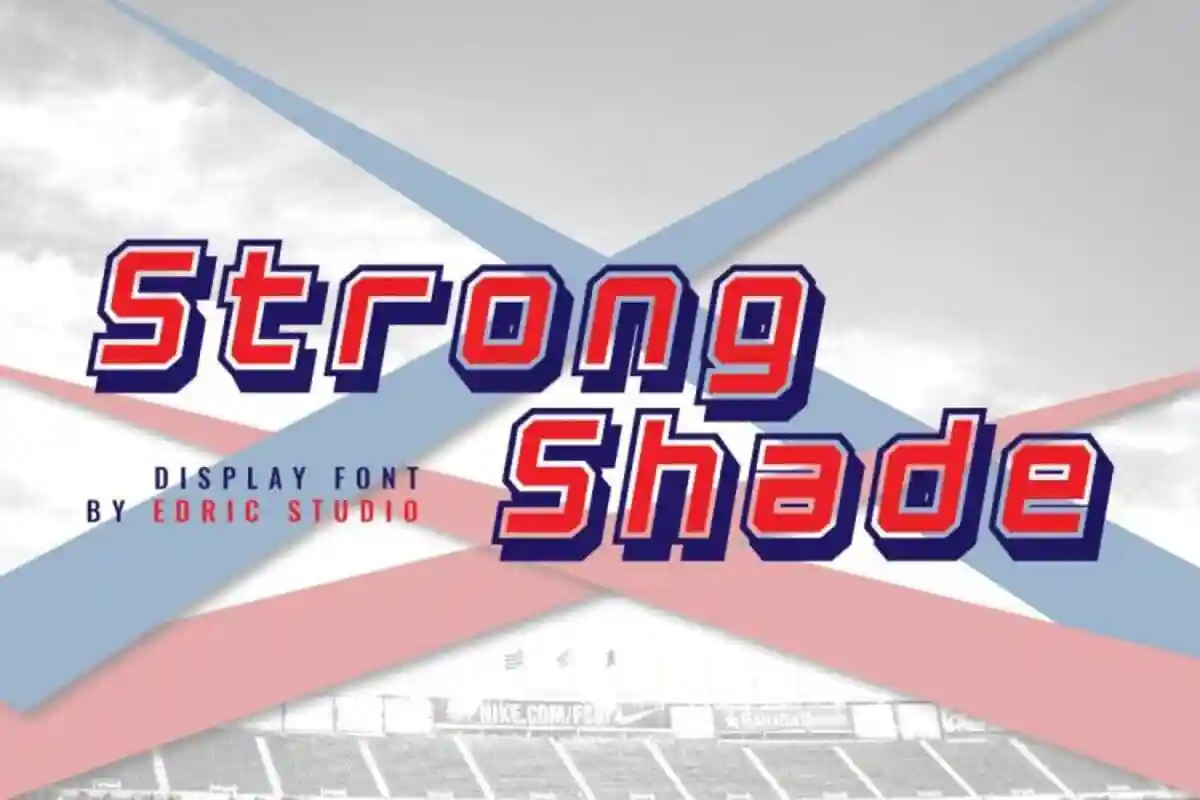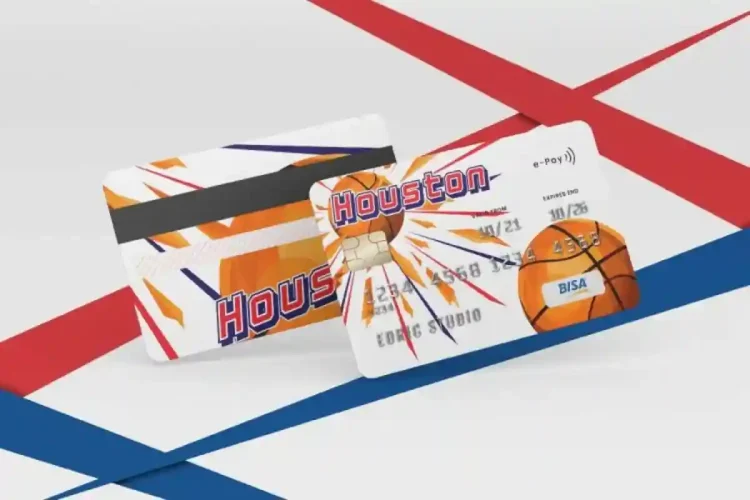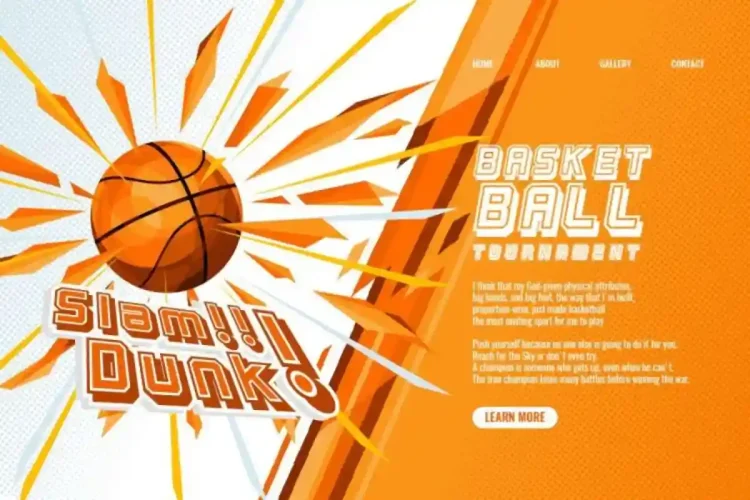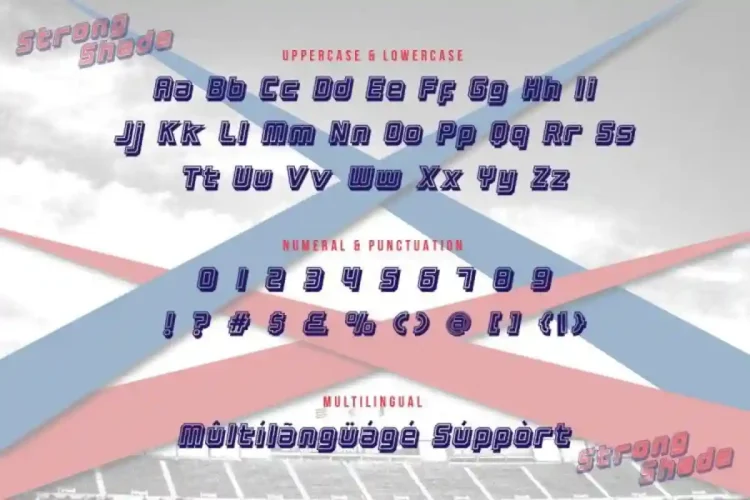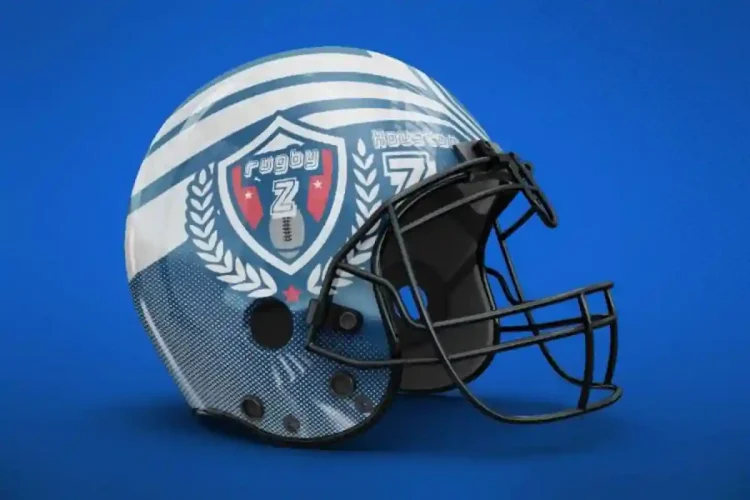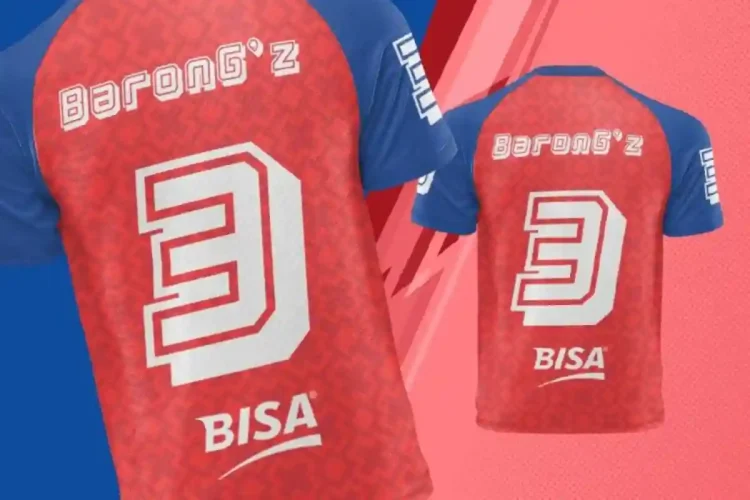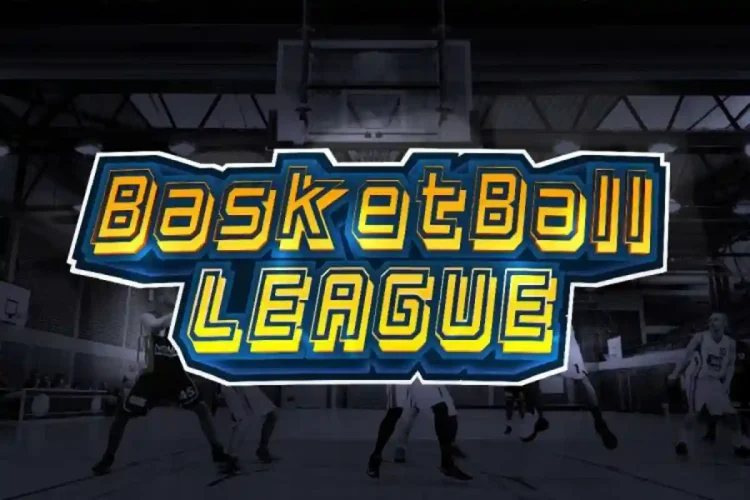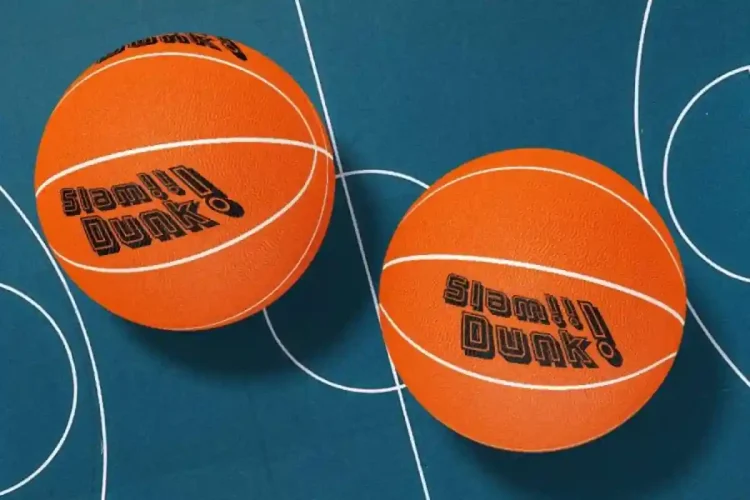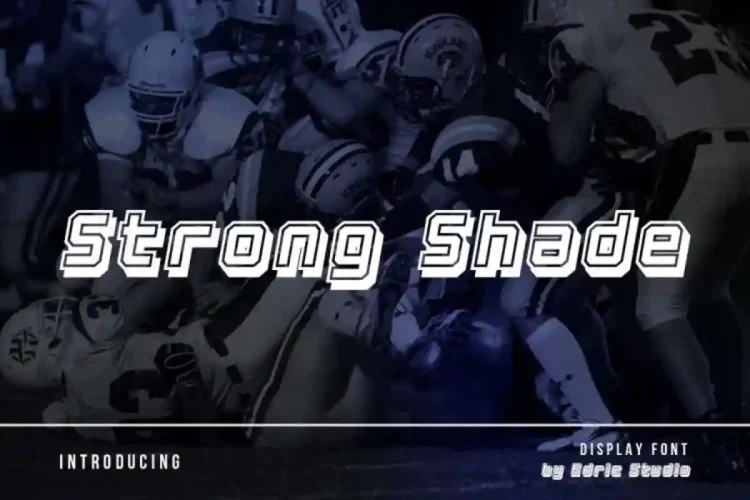
Strong Shade Display Font
Strong Shade Font is a sporty display font with special shadow on it, inspired by many baseball posters. Almost all industries will be match for this typeface including: automotive, fashion, game, movie, racing, sport, technology, and anything that requires a strong sports look.
Strong Shade Font comes with a full set of Uppercase and Lowercase Basic Characters, Number, large range of Punctuation and Symbol. It has a stunning characters set, perfectly managed with well spaced and kerning. Strong Shade Display Font will be great for any projects (with extended license) including: billboard, brand logo, headline, custom design, mockup, payment card, poster, screen printing, stationery, website, etc.
Strong Shade Font is a playful typeface with unique decoration in each character. It’s tested to work well in the Adobe Apps (Illustrator, Adobe InDesign, Adobe Photoshop) even work on Microsoft Word. PUA Encode Characters means you can access all the glyphs and other characters easily – Fully accessible without additional design software.